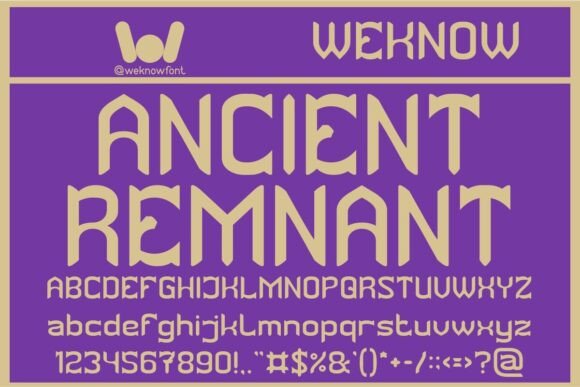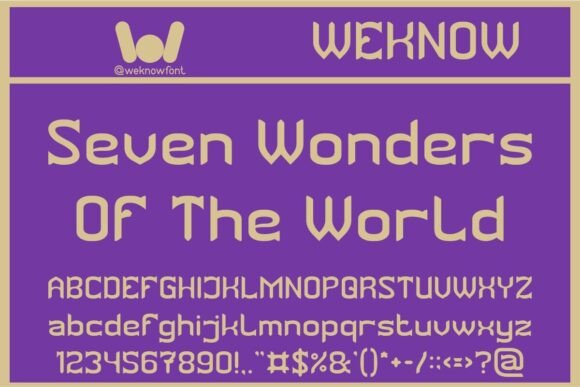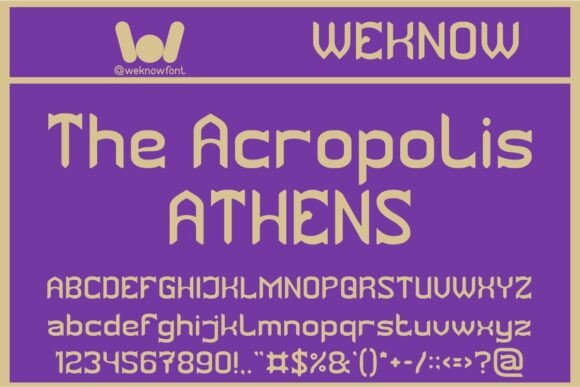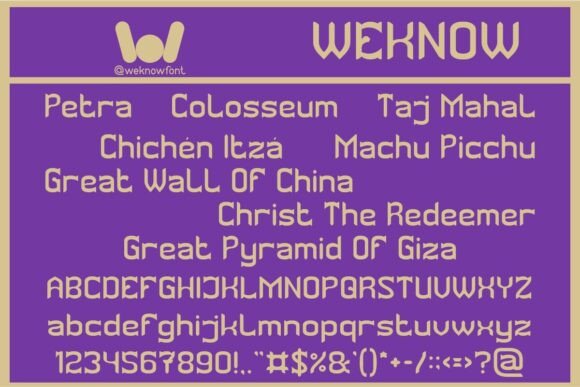
Ancient Remnant Font
About the Ancient Remnant Font
Step up your design game with Ancient Remnant Font, a font that exudes confidence and style. Immerse yourself in the traditional elegance embodied by the “Ancient Remnant” font. Drawing inspiration from the rugged beauty of Gothic architecture, this font carries an unmistakable aura of noble high class. It marries the regal poise of a modern knight king with the charming allure of a warrior’s kingdom. Designed for conspicuous display, its distinct character makes it an ideal fit for your logo, logotype, or headline purposes. This could be the unique font that sets your corporate or brand identity apart. It’s versatile enough for the apparel industry, eye-catching on posters, and transformative for music, movie, and game titles. Perfectly suited to magazine, book, and comic lettering, it adds a striking touch to cartoon artwork. Whether you’re planning to make waves on YouTube, create a buzz on Instagram, or build an engaging website, the Ancient Remnant font could be the creative ally that brings your design projects to life.
Ancient Remnant Font Usage Examples
Ancient Remnant Font Example